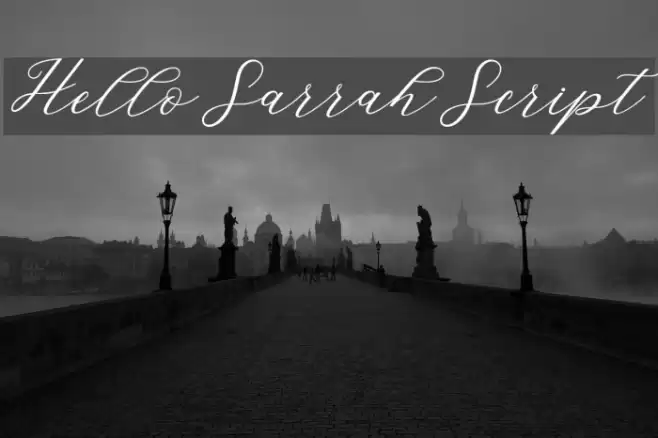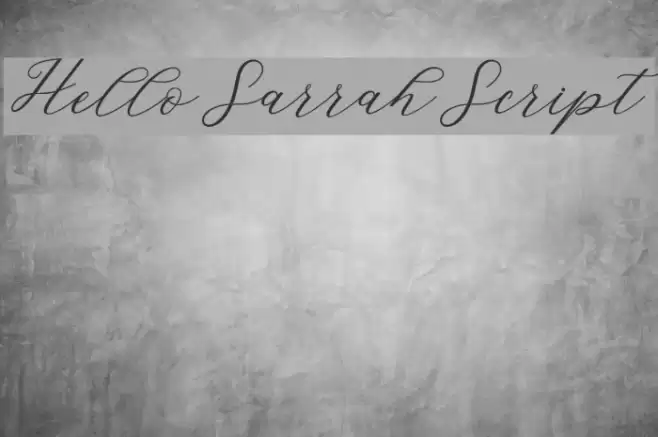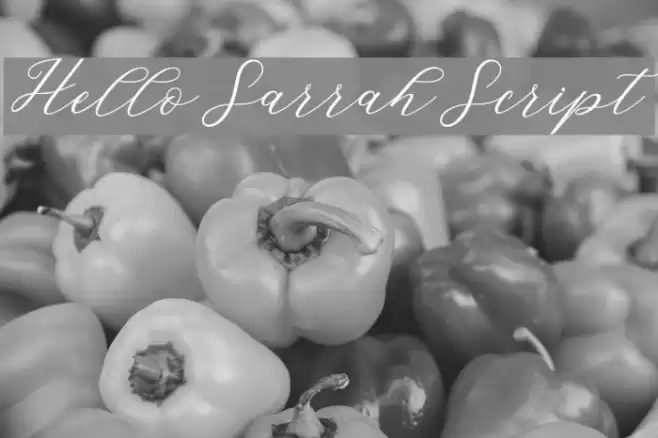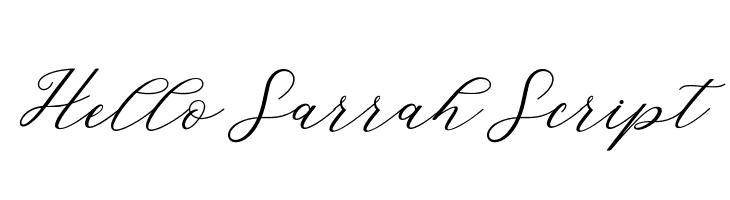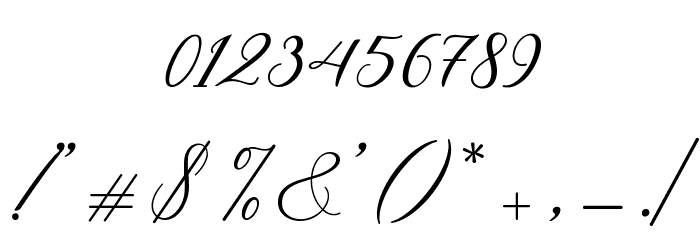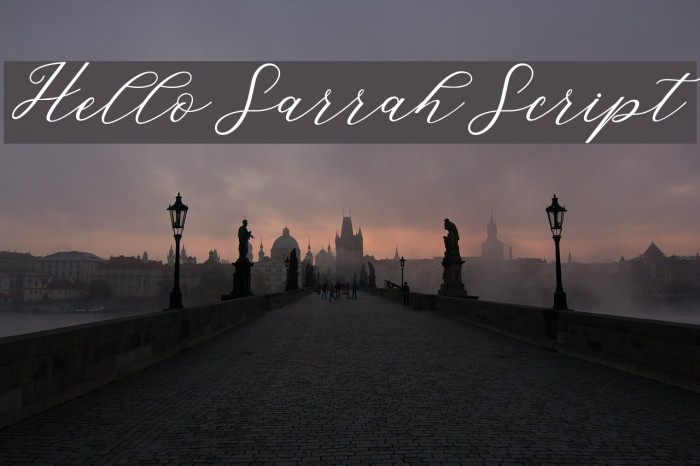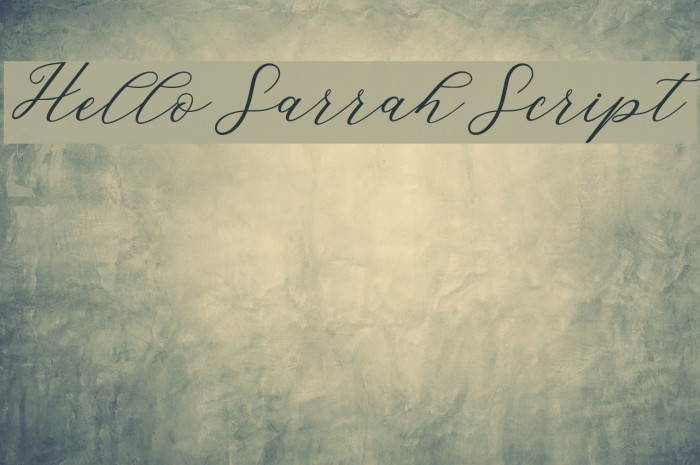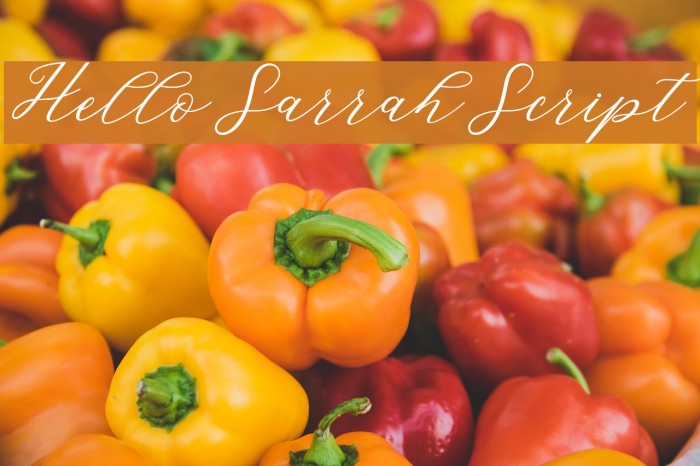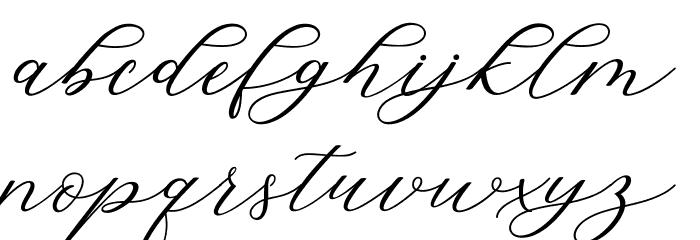
HelloSarrahScript Font
HelloSarrahScript Description
This elegant script font features fluid, interconnected strokes that mimic the natural flow of handwriting. The uppercase letters are gracefully elongated with delicate loops, while the lowercase letters maintain a consistent slant, enhancing the cursive style. The numerals and special characters are crafted with the same attention to detail, ensuring a cohesive appearance across all glyphs. The font's overall aesthetic is sophisticated and refined, making it ideal for projects that require a touch of elegance and personal flair.
A graceful script font with fluid, interconnected strokes and a refined aesthetic from Uncategorized fonts.
- Proposed Projects: Ideal for wedding invitations, greeting cards, personal branding, and elegant packaging designs.
- Overall Style: Elegant
- Use Case: Logos, Invitations, Personal Branding